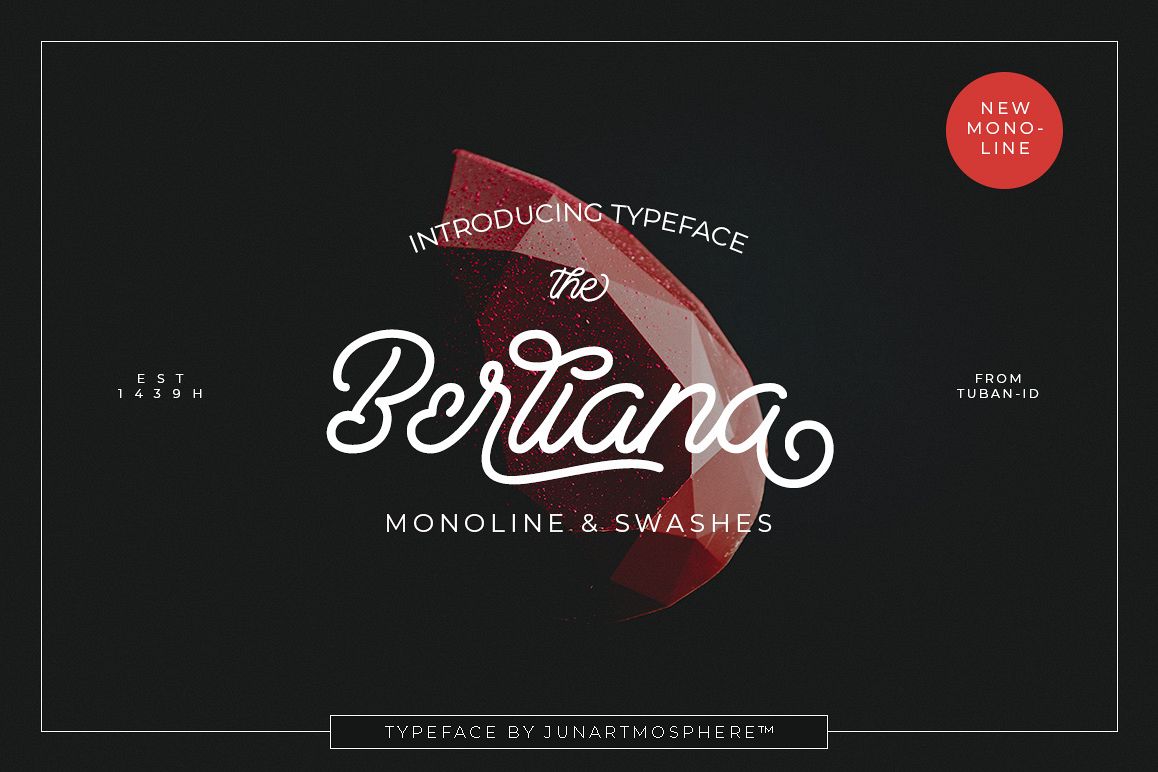
Berliana Monoline Font Extrass Logo
Berliana Monoline is typeface was inspired by handwriting using markers. While the name is a word other than Diamonds, namely jewelry worn by many women in the world. Diamond jewelry is so expensive and full of luxury. As regards with diamonds, this font was created to present the luxury of a very beautiful diamonds. This font is suitable for wedding invitations, design, logo or branding, or as the font for the typhography. Many features in this font such as ligatures, stylistic alternate, fina, swashes, etc with total more than 370++ Glyphs. We provided in OTF and TTF format file.In this file contains